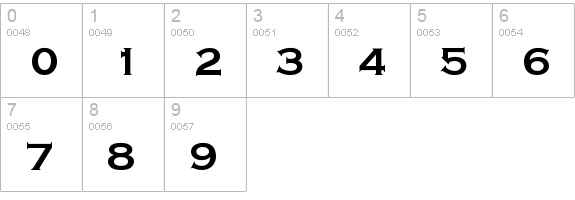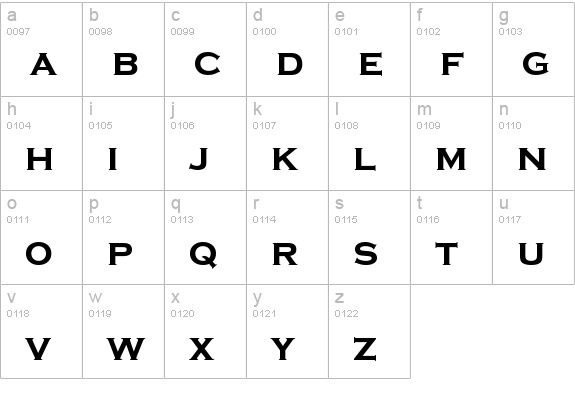
CopperplateTBol Font Details
CopperplateTBol font is a timeless and elegant typeface that exudes sophistication and style. With its classic letterforms and refined design, this font is perfect for adding a touch of class to any project. The bold weight of CopperplateTBol makes it stand out and grab attention, making it ideal for headings, titles, and other prominent text. Its clean lines and sharp angles give it a modern edge while still maintaining a sense of tradition. Best of all, CopperplateTBol font is completely free to use and is available for download at FontsMarket.com. Whether you're working on a print design, web project, or any other creative endeavor, CopperplateTBol font is sure to elevate your work and leave a lasting impression. Add a touch of sophistication to your projects with this stunning font today!